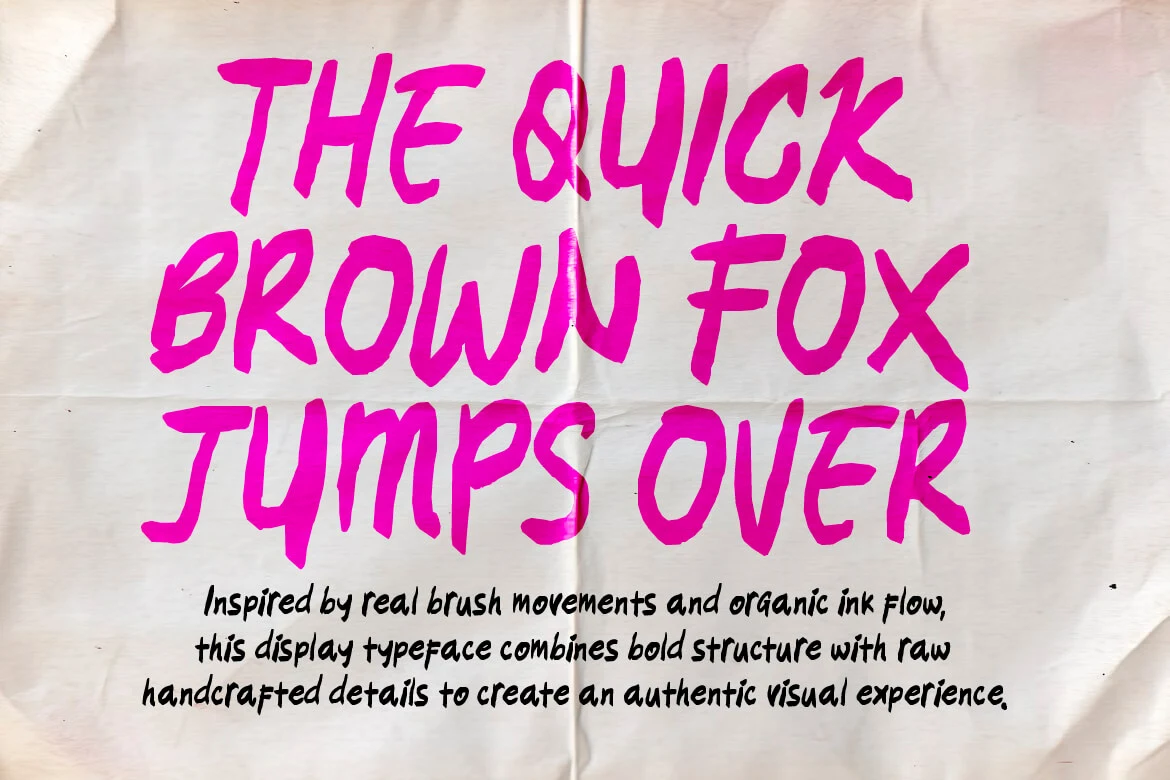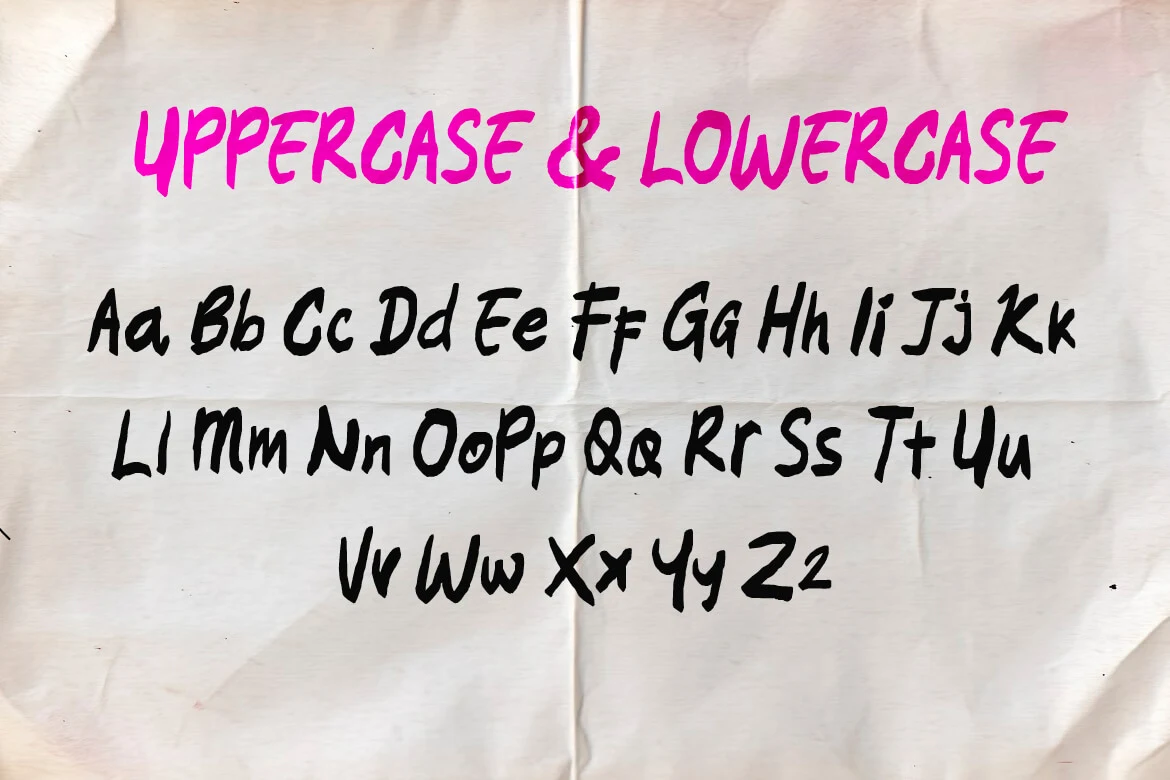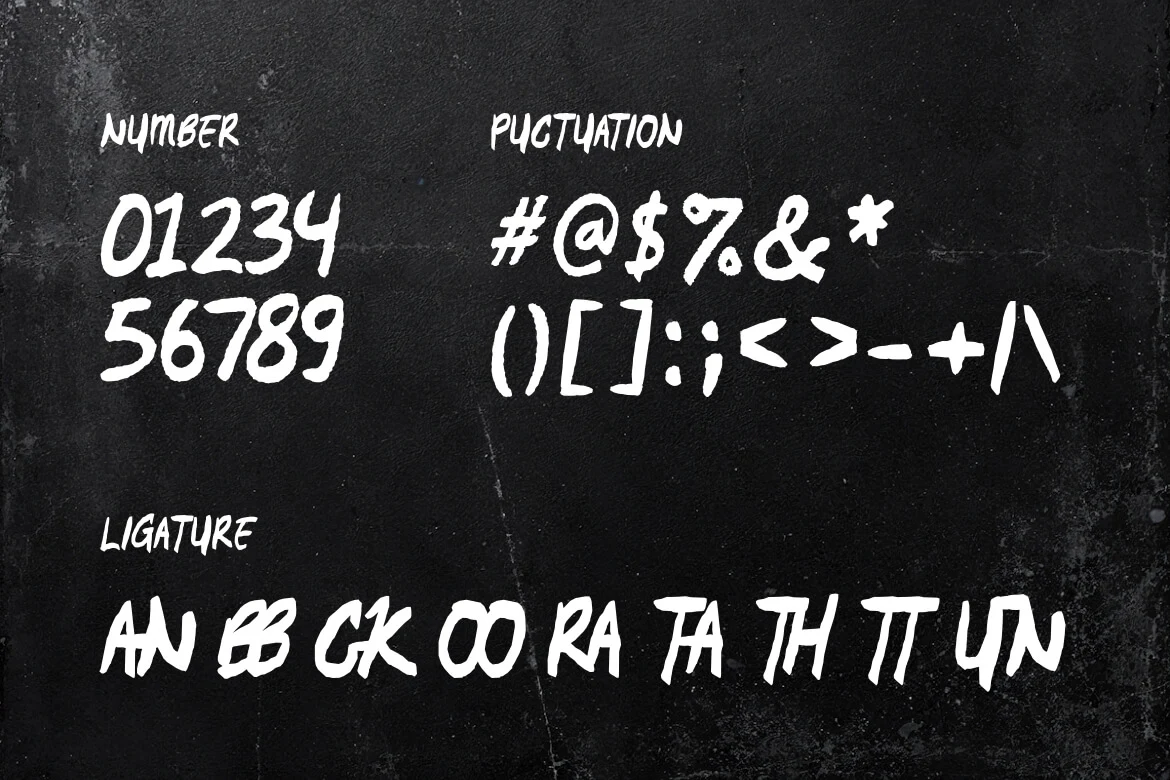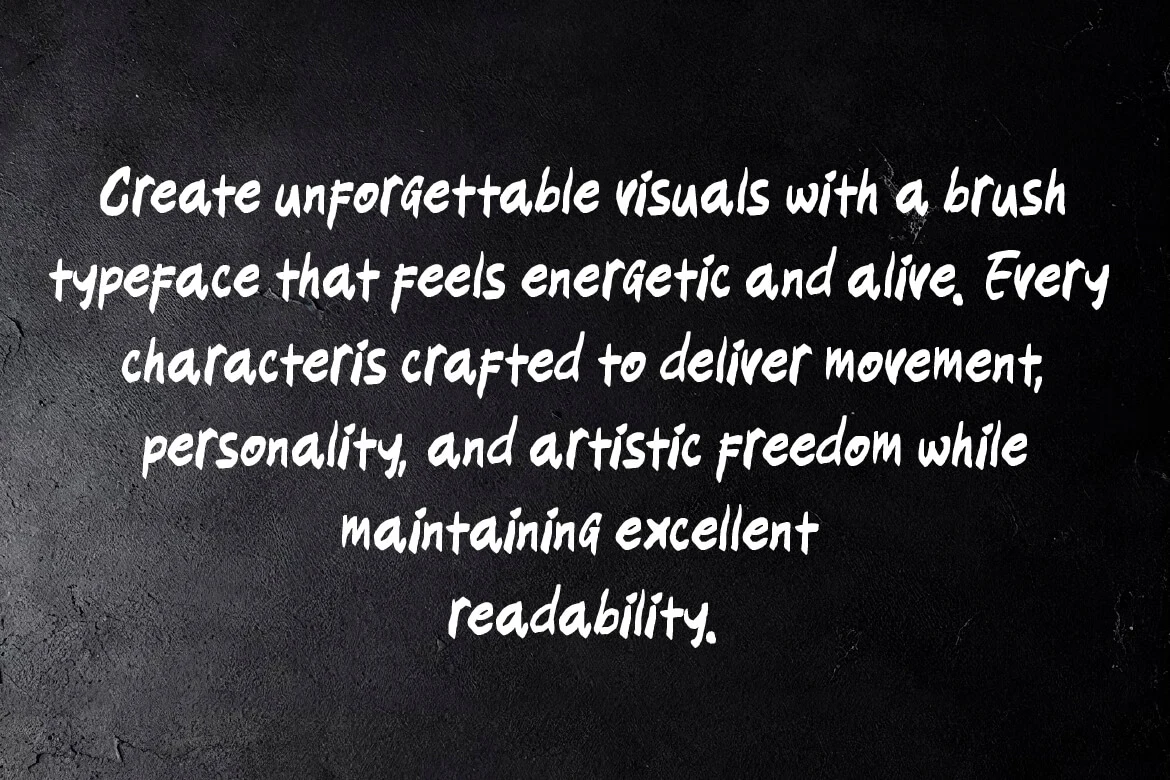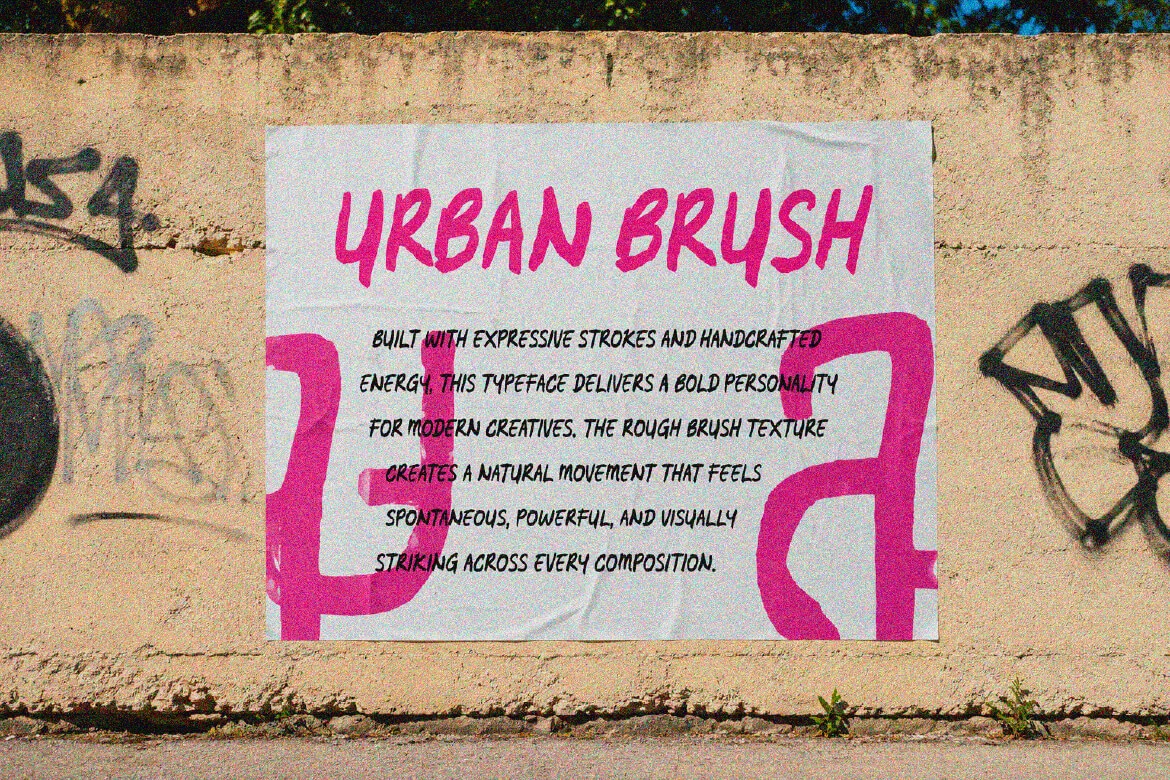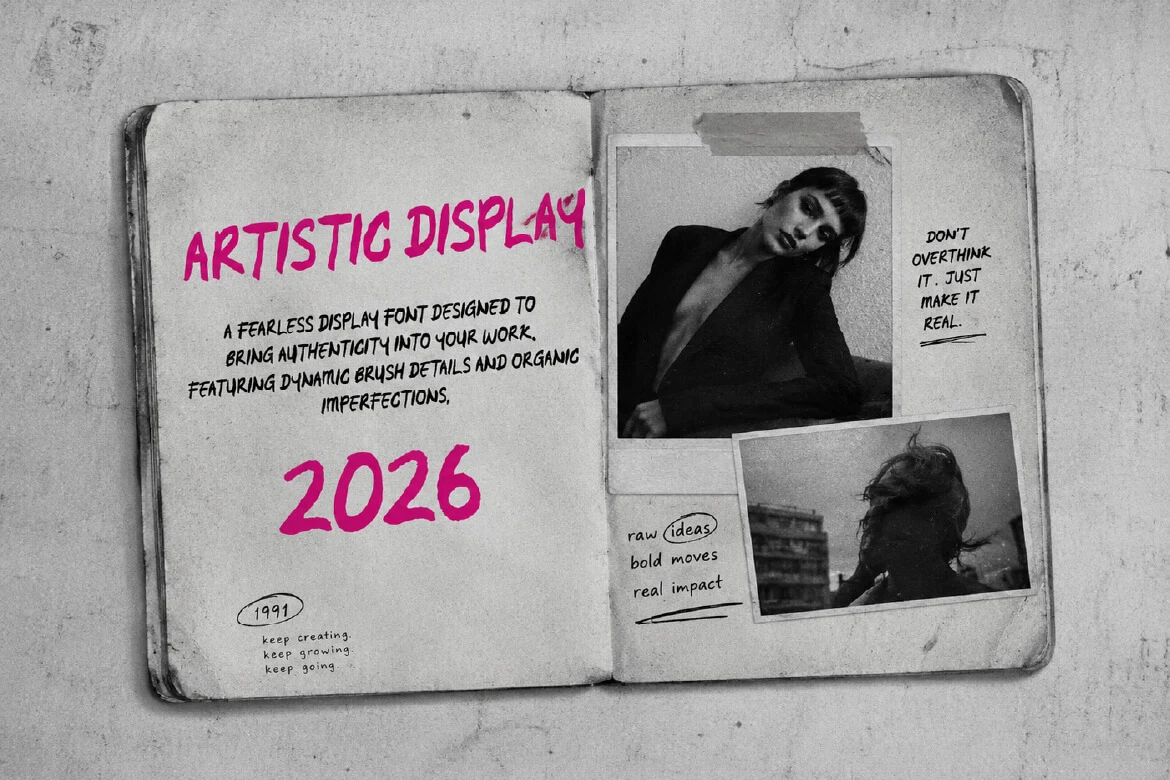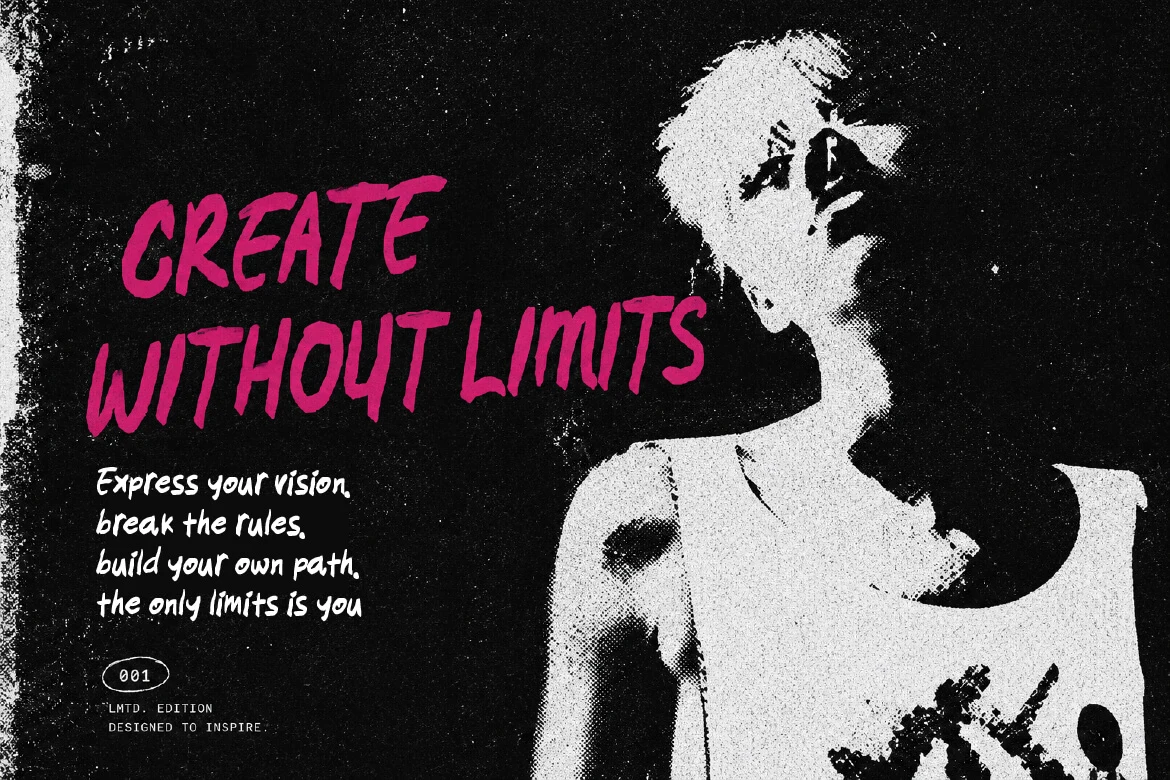
Wild Youth
Wild Youth is a handcrafted rough brush font shaped by organic strokes, natural ink flow, and raw handmade texture. Every letterform carries expressive movement while maintaining clean structure and comfortable readability across both print and digital layouts.
Inspired by hand-painted lettering and urban street aesthetics, this display typeface combines bold construction with natural brush details. It gives your headlines, logos, and packaging a genuine handmade character without feeling overly messy or difficult to set.
It is a natural fit for brand identity, logo marks, posters, display headlines, packaging, apparel, and social quotes. Whether you are working on merchandise or quiet personal graphics, it brings a relaxed, authentic voice to any creative project.